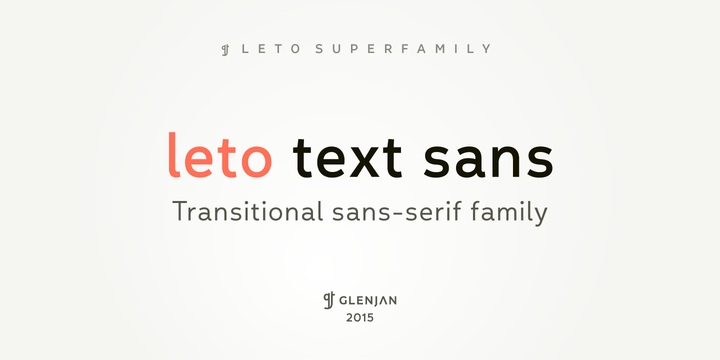
Leto Text Sans Font
Leto Text Sans Font is perfect for long-form editorial content, professional book publishing, technical documentation, academic research papers, corporate annual reports, user interface text, comprehensive website content, instruction manual layouts, educational textbooks, and extensive digital publications.
What makes Leto Text Sans Font so exciting is its exceptional optimization for extended reading experiences, featuring letterforms specifically engineered to reduce eye strain and maintain perfect legibility across thousands of words and multiple pages. This specialized typeface represents the pinnacle of text typography design, with characters that seem to guide readers effortlessly through complex information while preserving visual comfort and reading comprehension. The font's scientific design elements perfectly balance readability with contemporary aesthetics, creating an indispensable tool that communicates professionalism, accessibility, and scholarly authority while ensuring optimal reader engagement throughout extended reading sessions.
Leto Text Sans Font comes in multiple font families including Regular, Bold, Light, Italic, Bold Italic, Book, Medium, and Reader variations. Each family member maintains the core readability characteristics while offering different text hierarchy levels and stylistic approaches to suit various editorial design requirements.
The ergonomic letter spacing in Leto Text Sans Font makes it particularly suitable for educational institutions and publishing houses where reader comfort and information retention are paramount for successful knowledge transfer. Its carefully calibrated letterforms reduce reading fatigue while maintaining the professional appearance that appeals to serious readers and academic audiences seeking authoritative information sources.
Publishing professionals recognize how Leto Text Sans Font transforms dense informational content into accessible, reader-friendly publications that encourage sustained engagement and comprehension. The typeface's comprehensive character set includes extensive punctuation support, mathematical symbols, and international language features that accommodate complex editorial requirements and multilingual publishing needs.
For creative professionals serving academic publishers, educational institutions, and content-heavy digital platforms, Leto Text Sans Font serves as the ultimate foundation for creating memorable reading experiences that capture the essential qualities of scholarly authority, professional clarity, and reader-centered design that define successful long-form publications in competitive information markets.